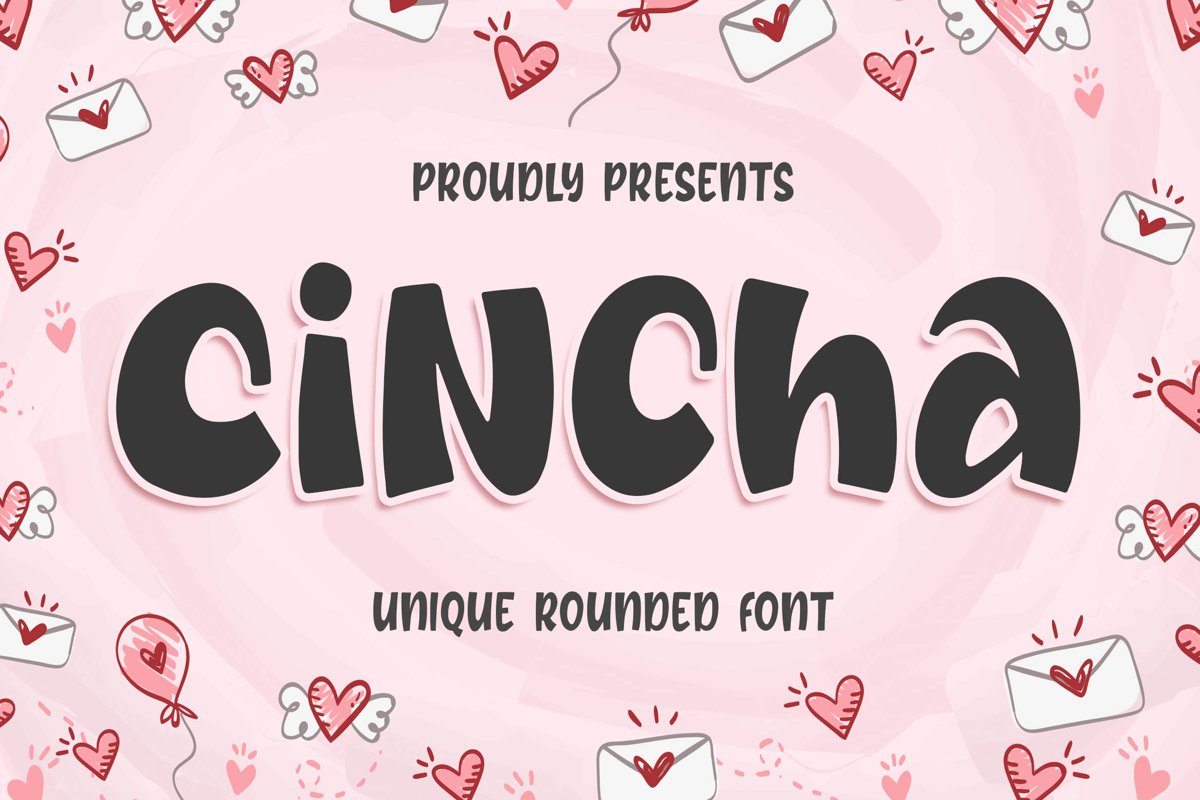
Introducing of our new product the name is Cincha Unique Rounded Font. Cincha inspired by cute style this font is a fun theme very good for, book cover, poster, t-shirt, quote, logotype, craft and etc
MULTILINGUAL ACCENT :ØÆøæ¢ÐŒœÁĂÂÀÄĄÅÃǼĆČÇĈĊĎÉĔĚÊËĖÈĘĞĜĢĠĤÍĬÎÏİÌĮĨĴĶĹĽĻĿŃŇŅÑÓŎÔÖÒŐǾÕŔŘŖŚŠŞŜȘŤŢÚŬÛÜÙŰŲŮŨẂŴẄẀÝŶŸỲŹŽŻáăâäàąåãǽćčçĉċďéĕěêëėèęğĝģġĥíîïìįĩĵķĺľļŀńʼnňņñóŏôöòőǿõŕřŗśšşŝșťţŭûüűùųůũẃŵẅẁýŷÿỳźžż
FEATURES :- Uppercase